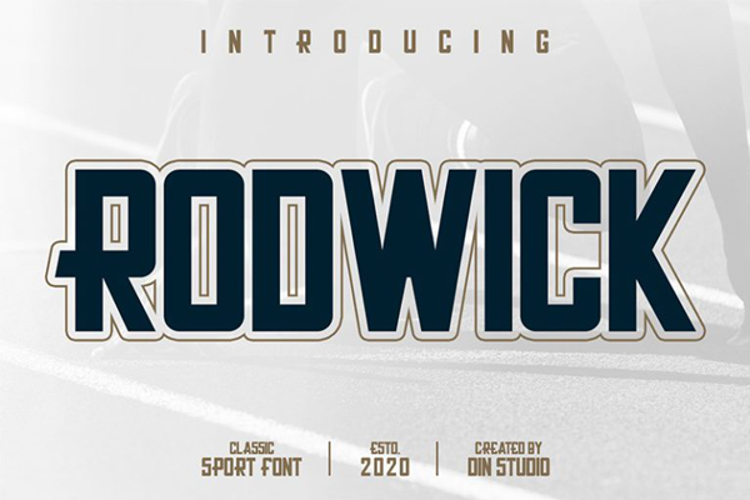
Rodwick Font
Product Description :
Rodwick is a classic sport font. Made for any professional project especially that related to the sports. Beside that, this font can be used for printing, branding and quotes.